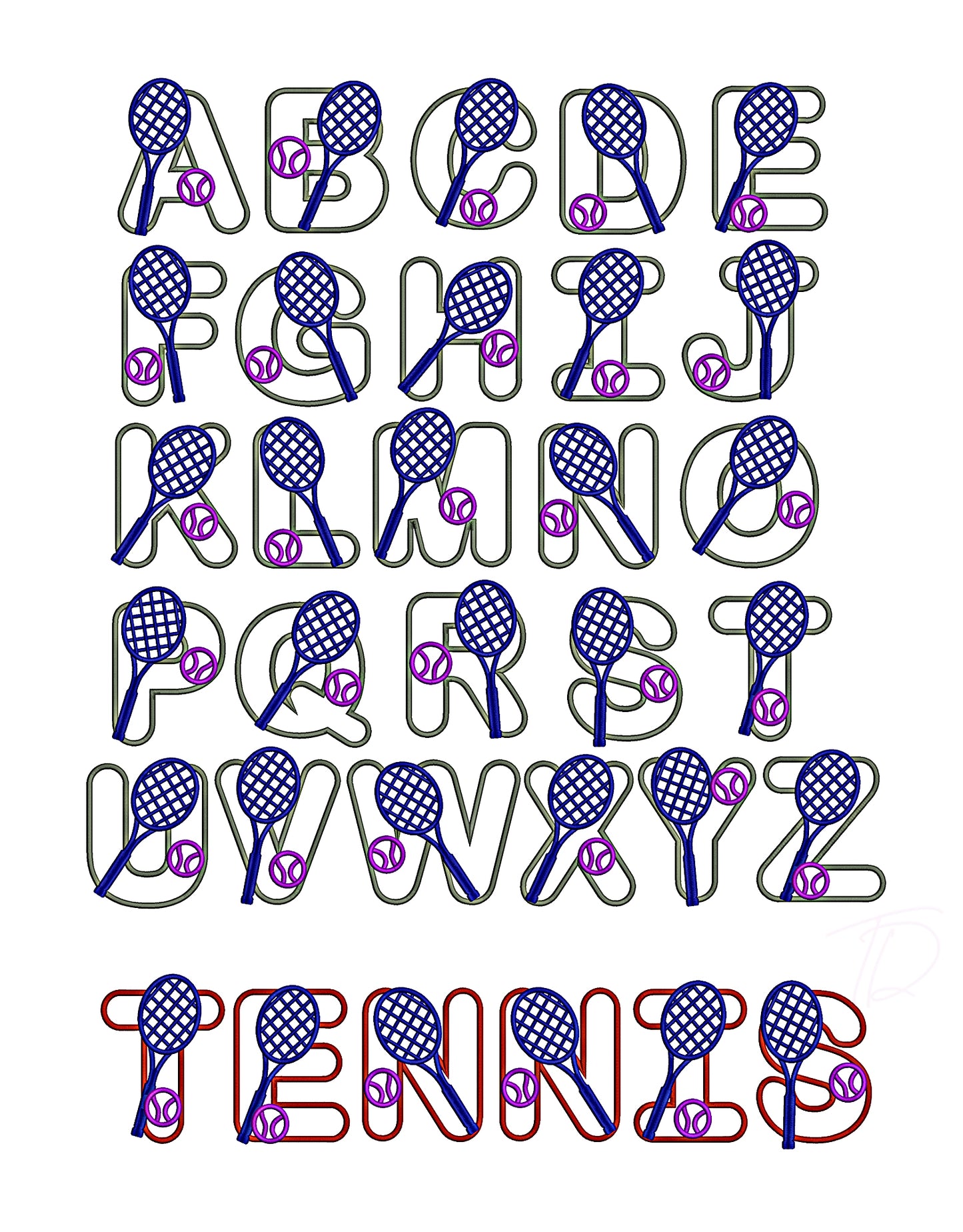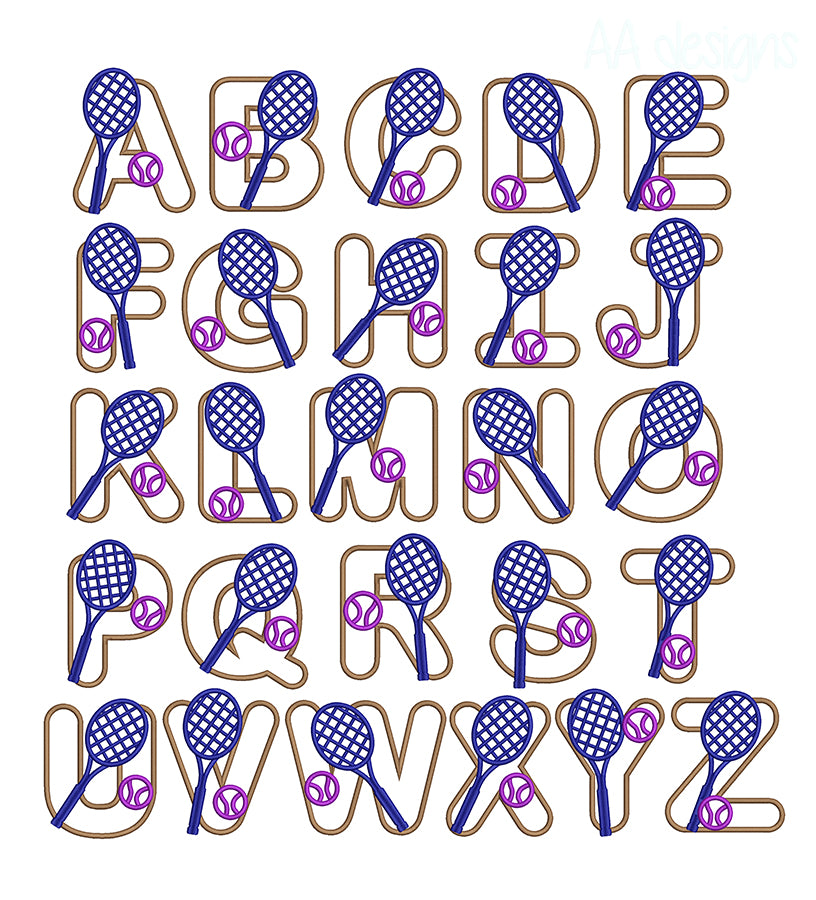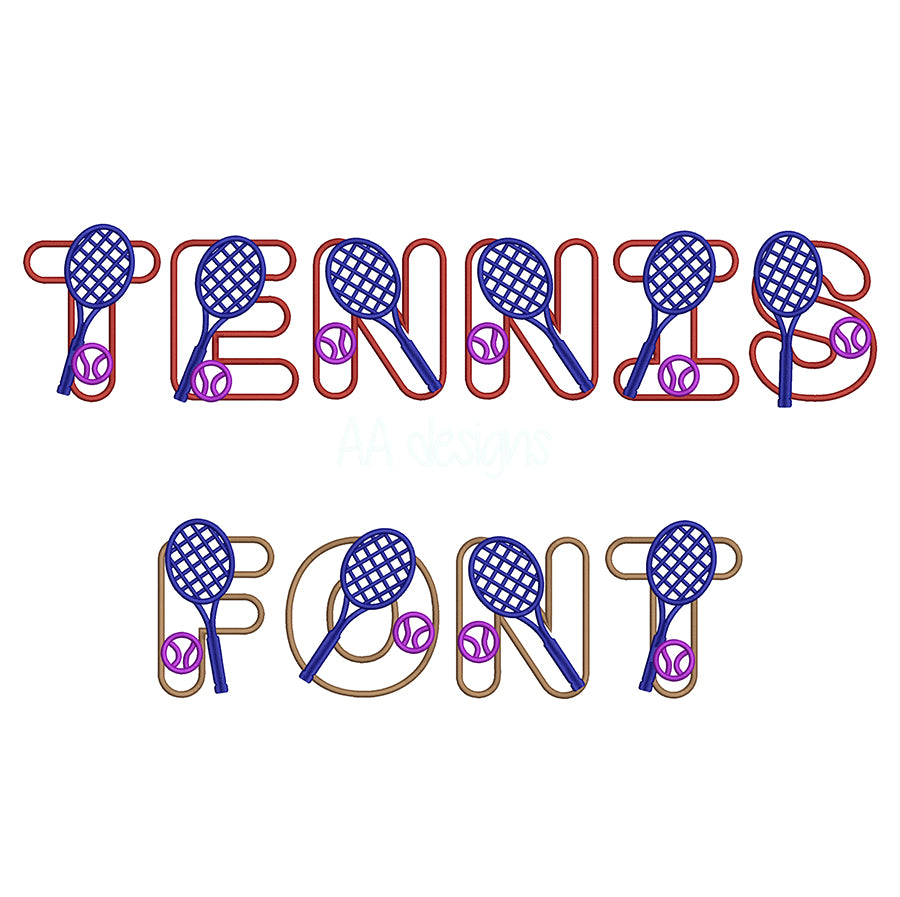
Tennis Applique Embroidery Font
Ace your next project with our Tennis Applique Embroidery Font — a sleek, sporty alphabet built for applique machine embroidery. With its layered fabric construction and low stitch count, this font is ideal for club apparel, personalized gifts, and custom sports merchandise.
- Applique-style construction for a bold, textured look with reduced stitch density
- Elegant athletic letterforms inspired by classic tennis club and tournament typography
- Perfect for player names, club initials, polo shirts, visors, tote bags, and towels
- Works beautifully on piqué, terry cloth, felt, canvas, and denim fabrics
From personalizing a tennis club kit to crafting the perfect gift for your favorite player, this applique font brings a polished, professional finish to every project.